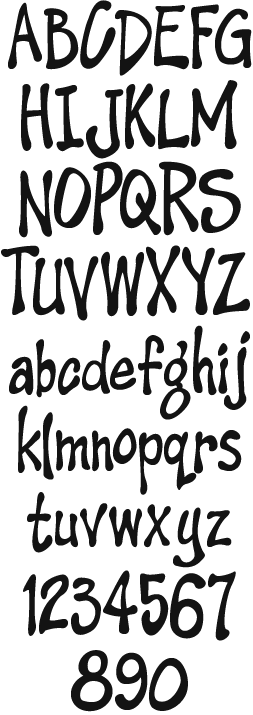
This casual typestyle was one of the first Dan ever learned to paint by hand. It is an easy casual style to letter and the blobs were easily achieved by simply varying the pressure as the letters are stroked.
The dimensional sign depicted at the left is one of several that will be used at the "Moose Mountain Adventure Golf" attraction Dan's company is currently building at the Mall of America in Minnesota.